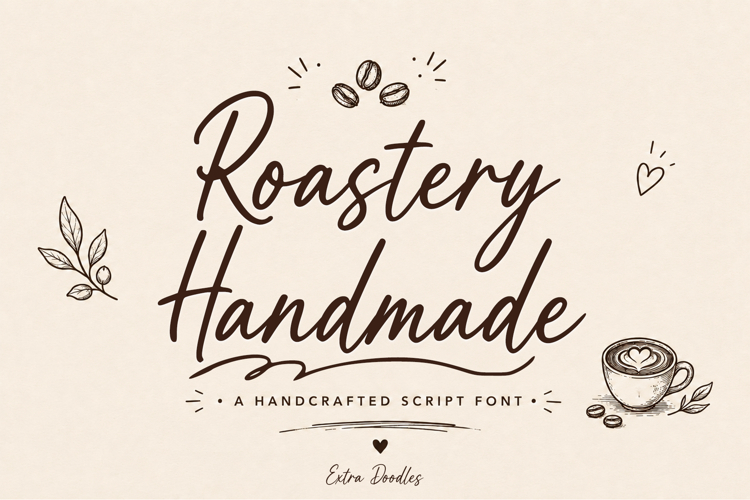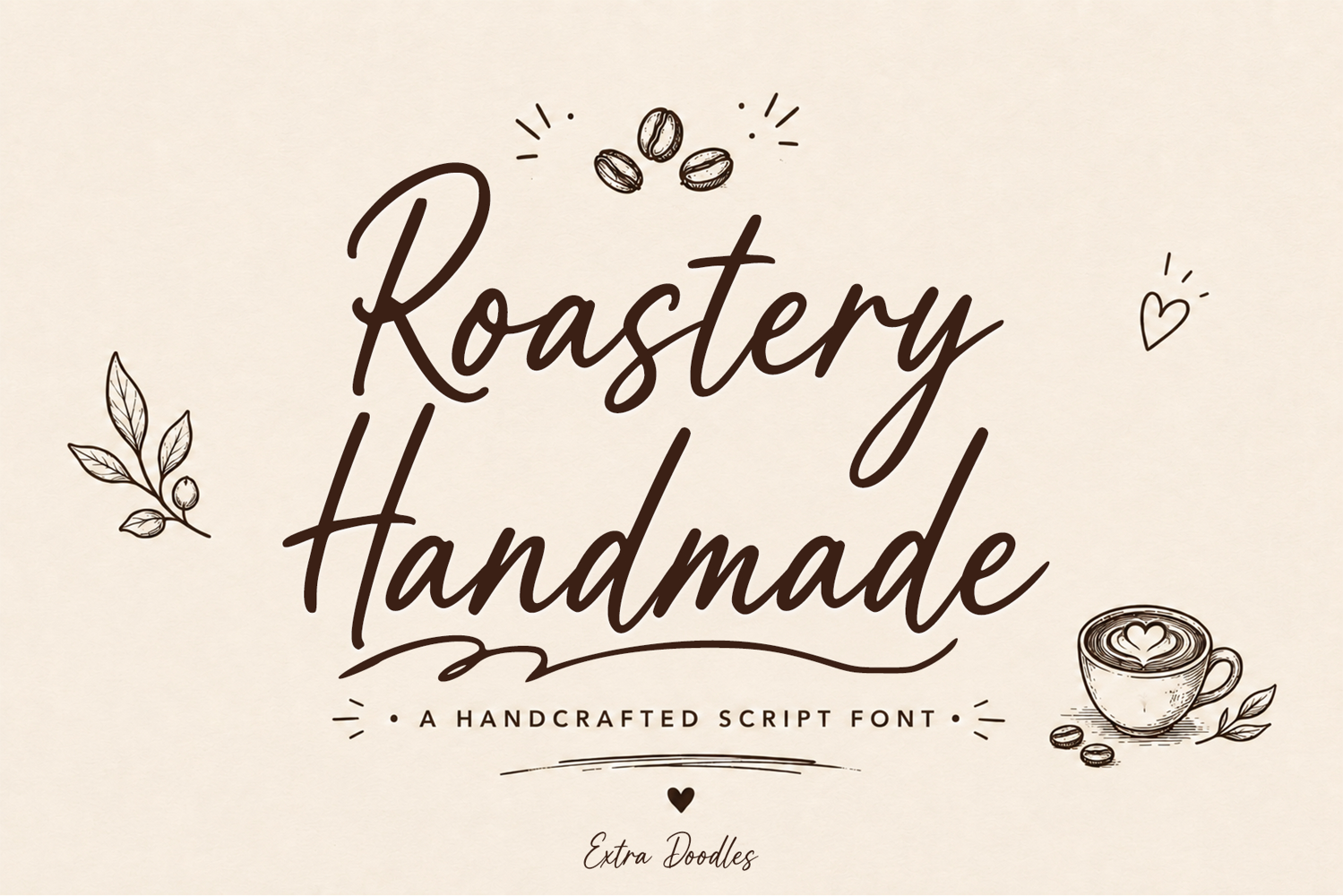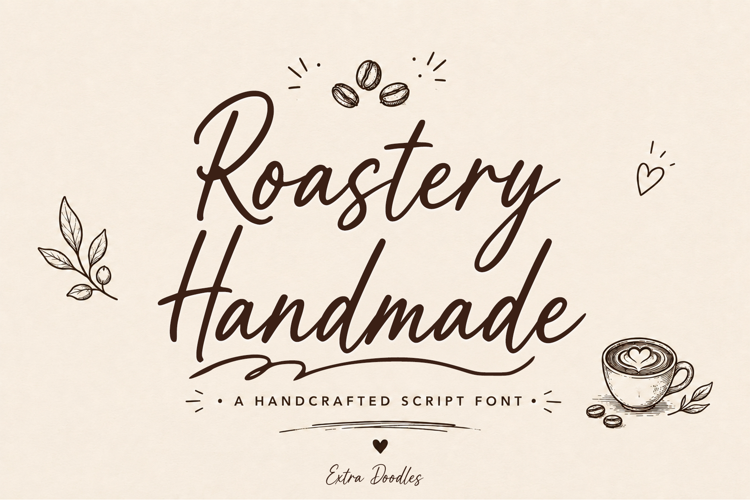
Roastery Handmade
Roastery Handmade is a warm and elegant handwritten script font crafted with a natural flow and smooth curves. Designed to bring a cozy, authentic, and modern handcrafted feel, this font works beautifully for branding, logos, packaging, café menus, product labels, social media, wedding designs, quotes, and creative projects.
With its clean brush-style strokes and stylish character connections, Roastery Handmade creates a friendly yet premium look that feels both timeless and versatile. The included doodle elements add an extra charming touch, making your designs more unique and expressive.